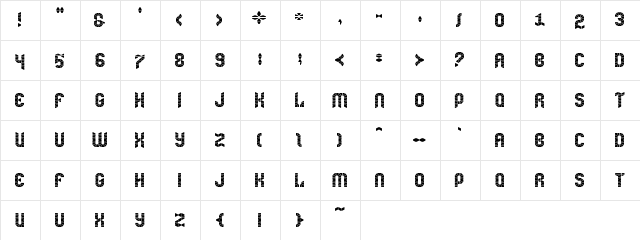
mummification Regular Free Font
mummification Regular
Designer: Wilson Thomas
Design Context for mummification
mummification is a composed and adaptable typeface that performs quietly and consistently across a wide range of design contexts.